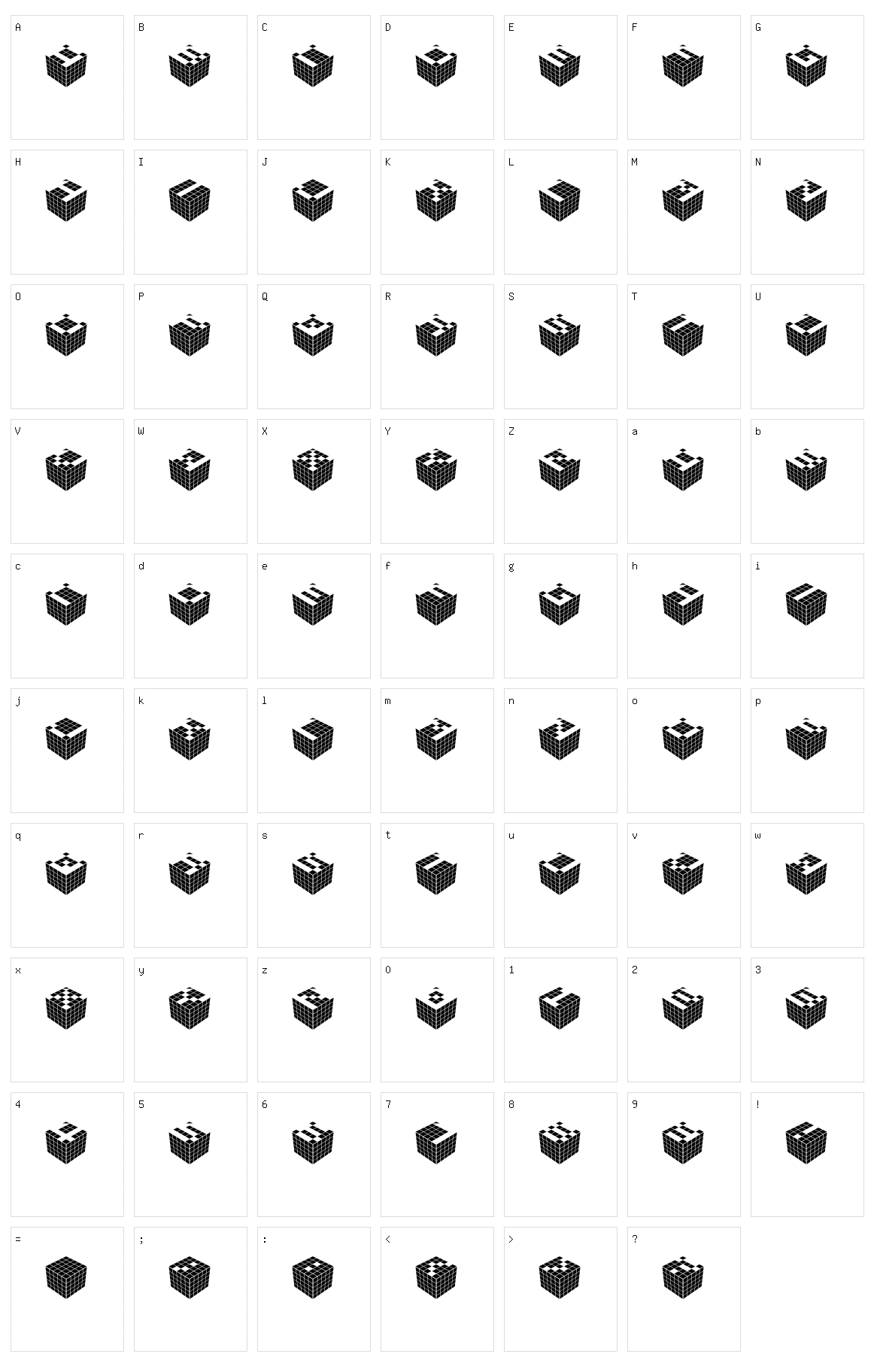
The free font Cubic Dot is carefully designed by Sound Factory, showcasing a thoughtful balance of creativity and usability and falls under the Square font style. When you download the ZIP file, it contains only 5.72 KB of font files, making it lightweight and quick to download. Please review the license details below to understand permitted usage and distribution rights. If license information is not available, we recommend using this font for personal projects only or contacting the author directly for commercial usage permissions.